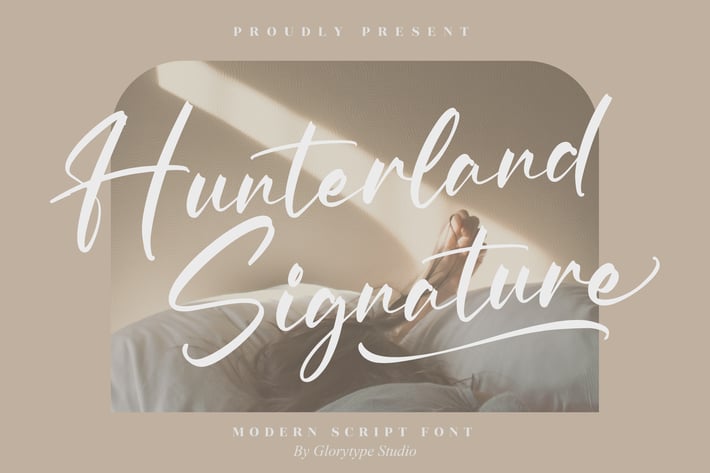
Hunterland Signature Modern Script Font
Hunterland Signature is a modern script font with smooth, flowing strokes that combine elegance and contemporary style. Designed to bring a personal and luxurious feel, this font works perfectly for projects that need a stylish and authentic handwritten touch.
+ Modern handwritten script style
+ Elegant and flowing strokes
+ Great readability in both print and digital use
+ Versatile design suitable for many applications
+ Multilingual support
+ Branding & logos
+ Fashion and lifestyle designs
+ Wedding invitations & stationery
+ Editorial and magazine layouts
+ Social media graphics
+ Posters & product packaging
Add modern elegance and personality to your work with Hunterland Signature — the handwritten script font that captures timeless sophistication.